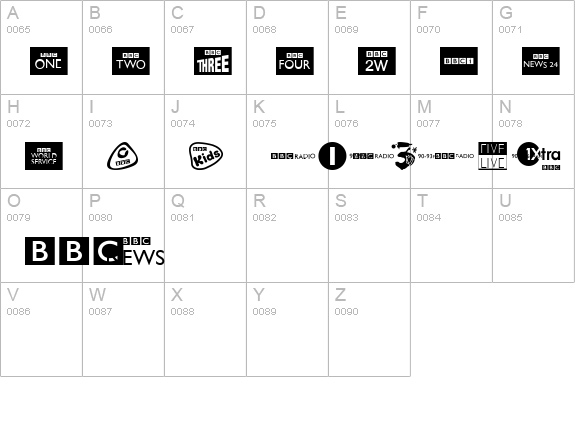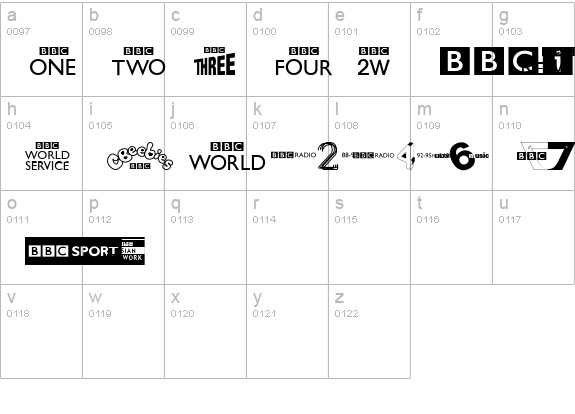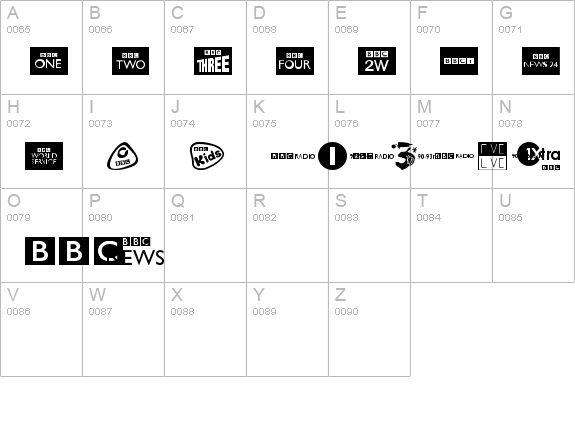
BBC TV Channel Logos Font Details
The BBC TV Channel Logos font is a sleek and modern typeface designed to perfectly capture the essence of the renowned British Broadcasting Corporation. With its clean lines and bold lettering, this font is ideal for adding a touch of sophistication to any design project. The BBC TV Channel Logos font is versatile and can be used for a variety of purposes, from branding to promotional materials. The best part? This font is completely free to download at FontsMarket.com. Simply head over to the website and get access to this stylish typeface at no cost. Whether you're a designer looking to elevate your work or a fan of the BBC wanting to incorporate their iconic style into your projects, the BBC TV Channel Logos font is the perfect choice. Download it today and start creating stunning designs with ease.